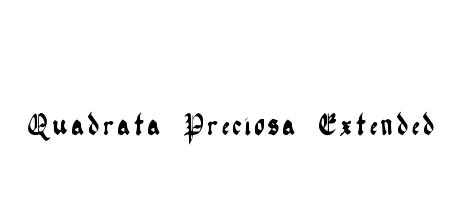
Quadrata Preciosa
Quadrata Preciosa Extended: A bold, blackletter typeface, it exudes a medieval elegance. Its serifs are sharp and angular, creating a strong vertical emphasis. The letters are condensed, adding a sense of density and power. It’s both regal and mysterious, suitable for formal invitations or gothic-themed projects. The "extended" likely refers to a wider letter spacing compared to the standard Quadrata Preciosa.